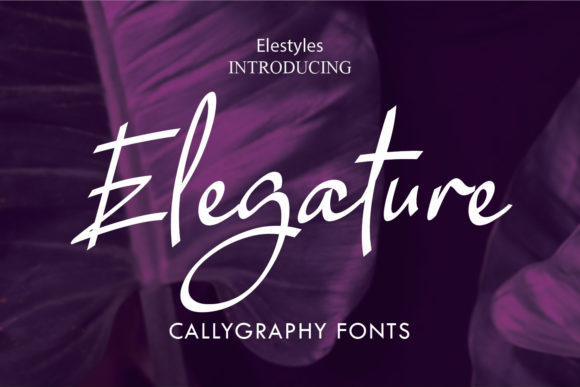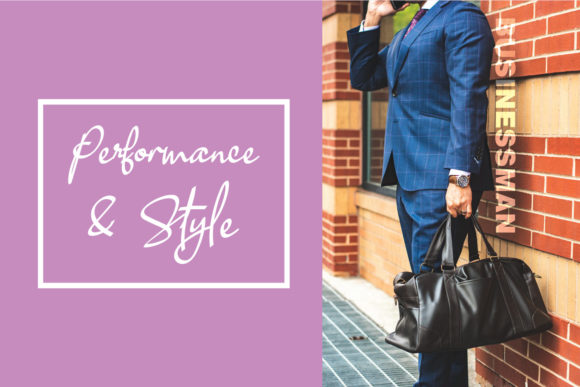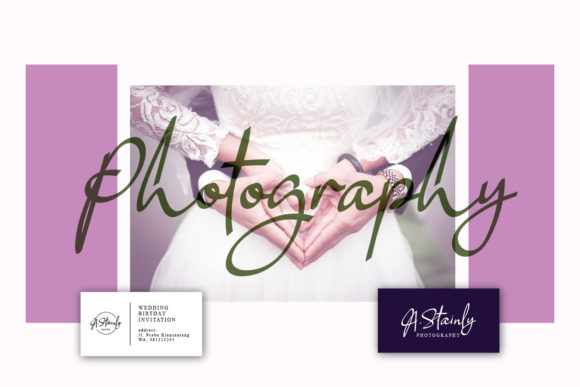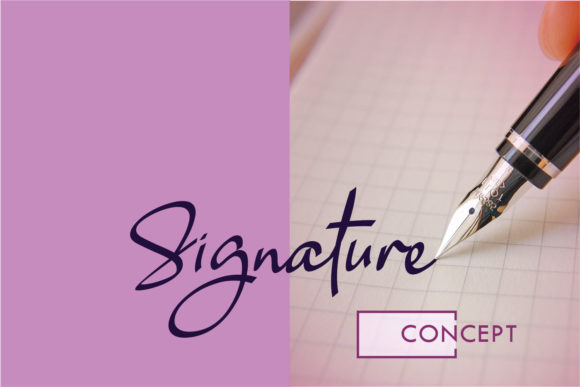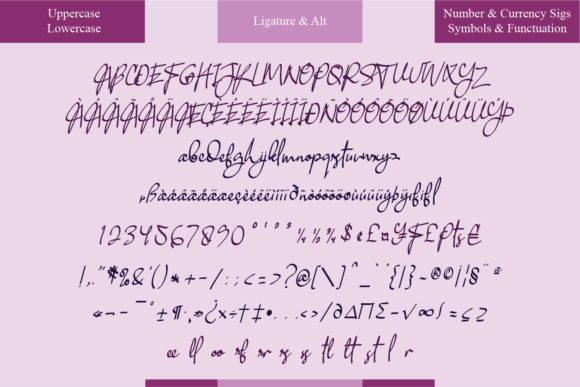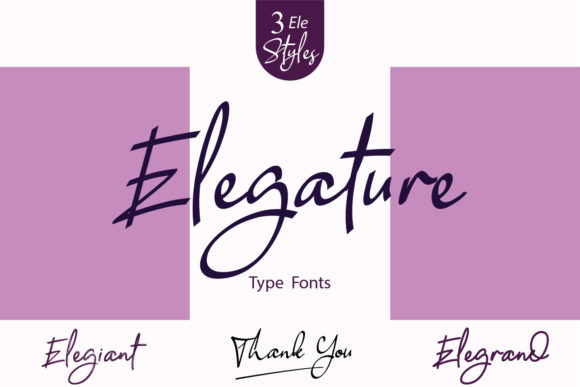
Elegature Font
About Elegature Font
Elegature was created using a thin pen. This gorgeous script radiates authenticity, and will effortlessly add a charming vibe to your next crafting project.